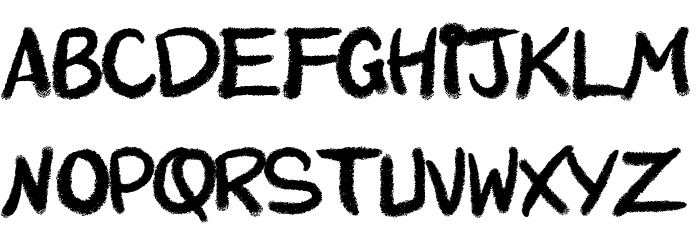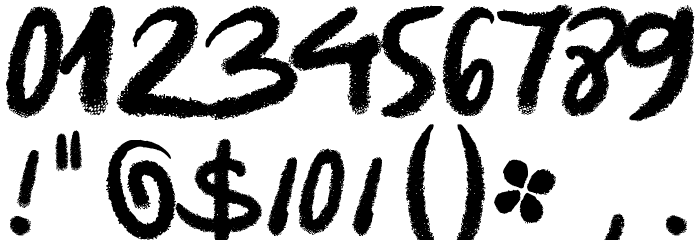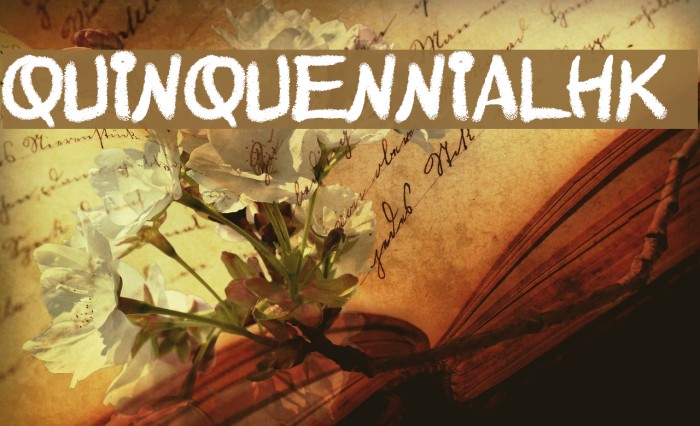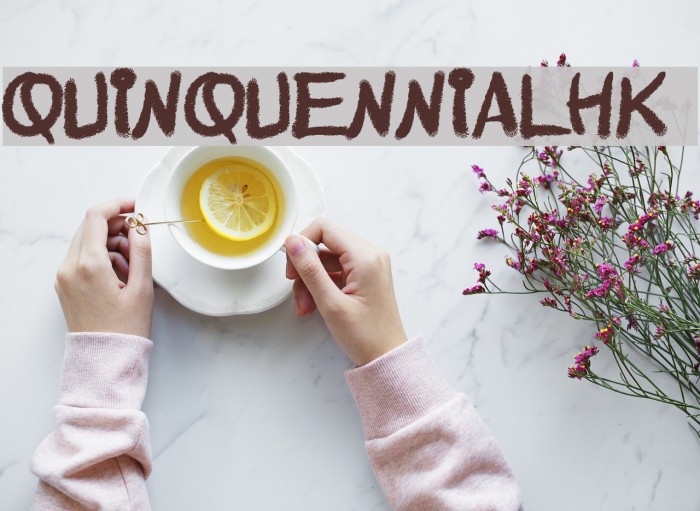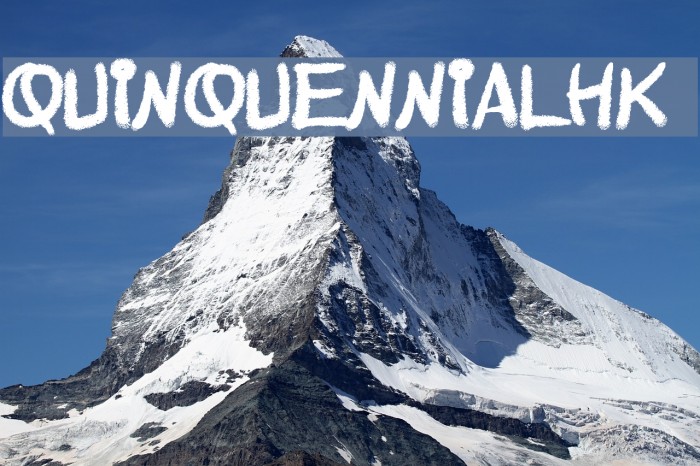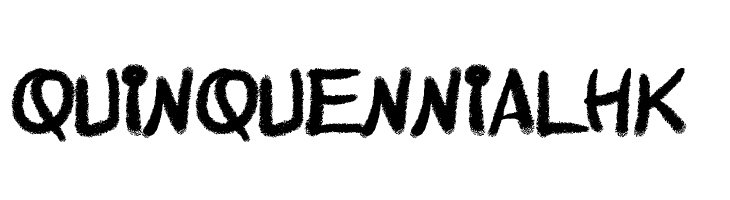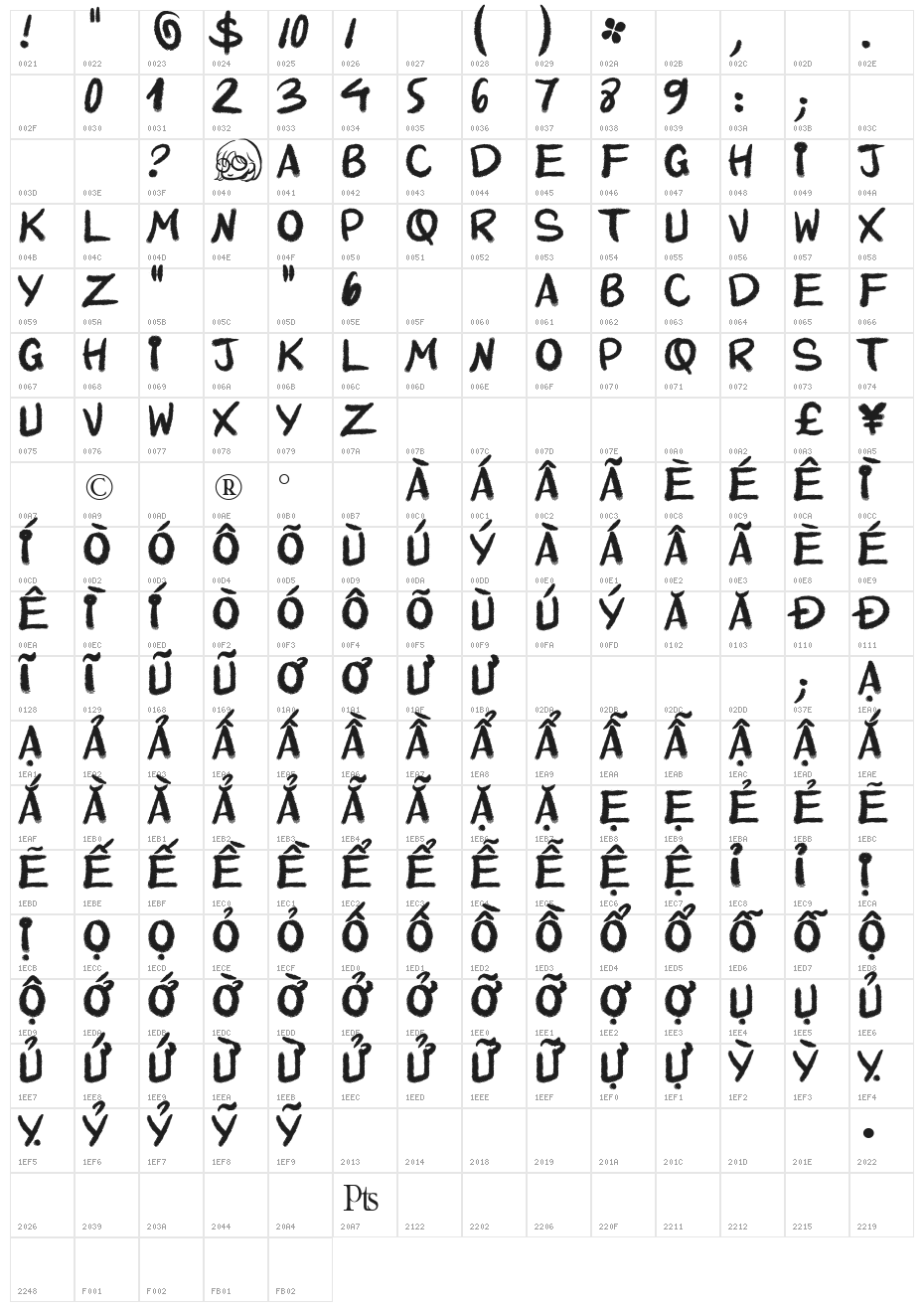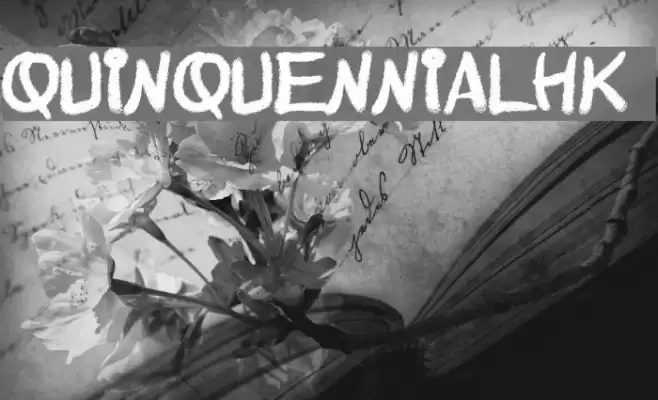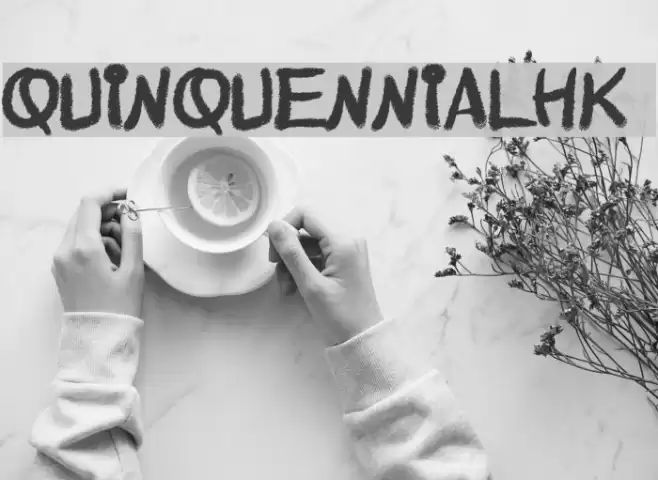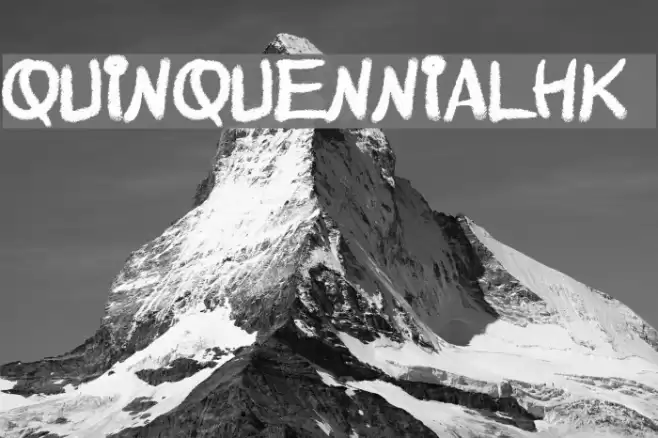
QuinquennialHK Font
This font features a bold and expressive handwritten style, characterized by its thick, textured strokes that convey a sense of energy and dynamism. The letters are slightly irregular, adding a personal and informal touch. The uppercase and lowercase letters maintain a consistent style, with rounded edges and a playful appearance. The numerals and special characters follow the same aesthetic, ensuring a cohesive look across all glyphs. This font is ideal for projects that require a casual and approachable feel, such as invitations, posters, or branding for creative industries.
A bold, textured handwritten font with a playful and dynamic style.
- Proposed Projects: Ideal for creative projects like invitations, posters, branding, and social media graphics.